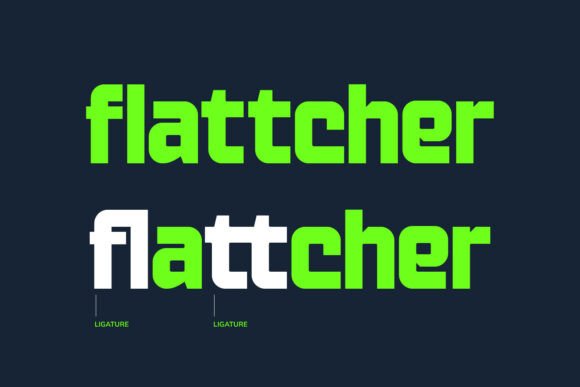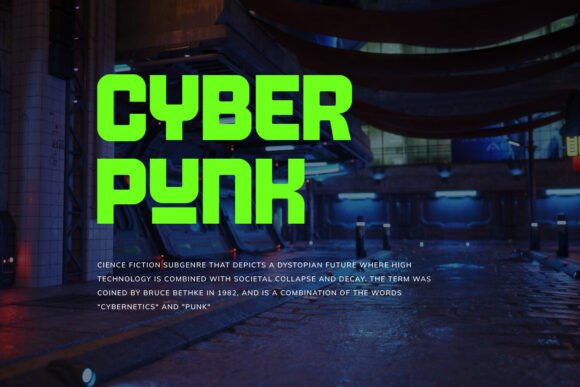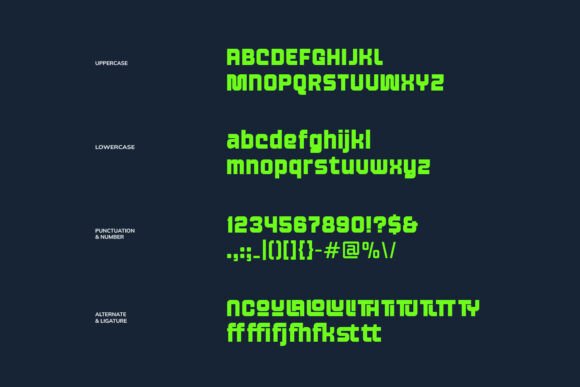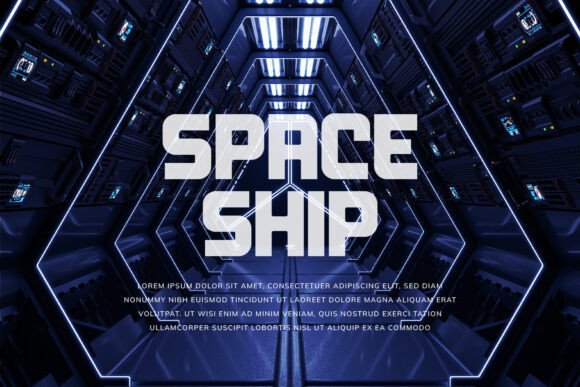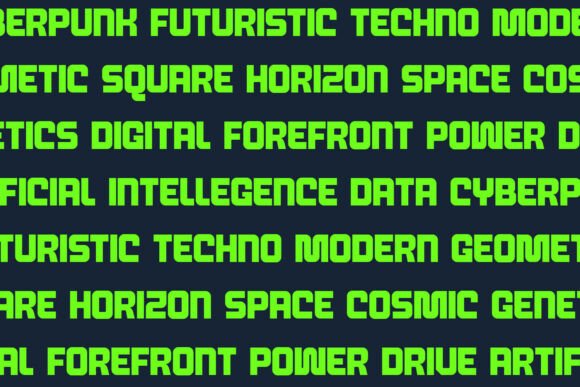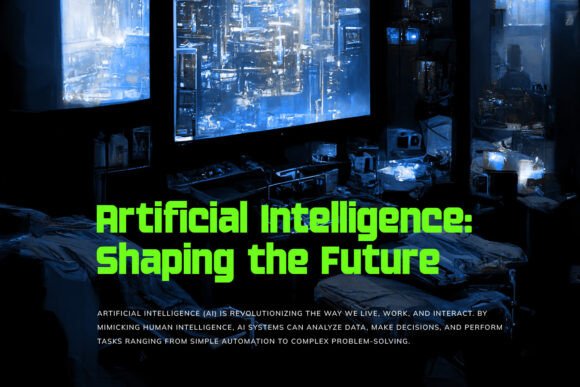
Introduction to Maxel Font
Maxel is a bold sans-serif font with a sleek, futuristic style that makes it perfect for modern and cutting-edge designs.
Whether youโre creating for space themes, techno aesthetics, gaming projects, or crafting standout branding and logos, Maxel delivers a powerful and contemporary look Its strong, versatile character is ready to elevate your creative vision.
Key Features of Maxel Font
Why Choose Maxel Font?
Maxel Font offers exceptional quality and versatility, making it a valuable addition to your design toolkit. Whether you’re creating for personal projects or commercial use, Maxel Font delivers professional results.